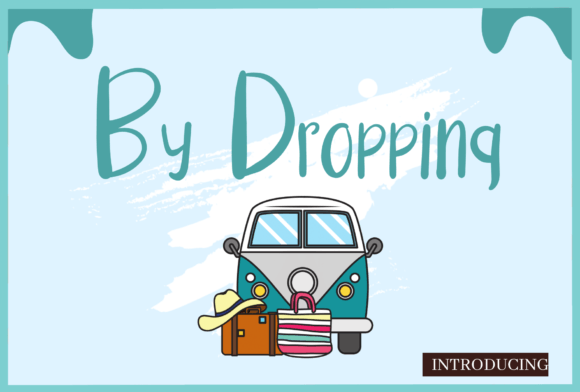
The Perfect Handwritten Touch: A Deep Dive into By Dropping Font
I’ll never forget the time I was working on a wedding invitation project, and my client asked for a font that looked like it was written with love. You know, that perfect blend of elegance and whimsy. I scoured the internet, tried out a gazillion fonts, but nothing seemed quite right. That was until I stumbled upon By Dropping, a modern handwritten script that has since become a staple in my design toolkit.
First Impressions: A Review of By Dropping
So, what makes By Dropping so special? Let’s dive into the good stuff! 😊
- ✨ Natural and stylish: By Dropping has a unique, organic feel that looks like it was written with a pen. It’s perfect for projects that require a personal touch.
- ✅ Versatile: This font is incredibly versatile and works beautifully on a variety of design materials, including wedding invitations, thank you cards, quotes, greeting cards, logos, business cards, and more.
- 💕 Emotional connection: By Dropping has a way of evoking emotions and creating a connection with the reader. It’s perfect for projects that require a bit of personality and flair.
The Not-So-Perfect Bits
While By Dropping is an amazing font, it’s not without its quirks. Here are a few things to keep in mind:
- 🤔 Legibility at small sizes: Like many script fonts, By Dropping can be a bit tricky to read at small sizes. Make sure to test it out at different sizes to ensure it works for your project.
- ⚠️ Limited use in body text: While By Dropping is perfect for headings and titles, it’s not the best choice for body text. It’s a bit too ornate and can be tiring to read in large blocks.
The Story Behind By Dropping
By Dropping was designed with the intention of creating a font that felt like a handwritten letter. The designer wanted to capture the imperfections and quirks of handwriting, while still maintaining a level of elegance and sophistication. The result is a font that’s both personal and refined.
| Is By Dropping suitable for body text? | While By Dropping is a beautiful font, it’s not the best choice for body text. It’s better suited for headings, titles, and short blocks of text. |